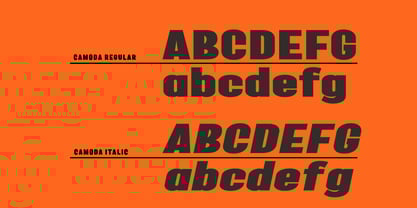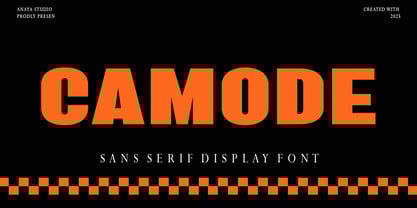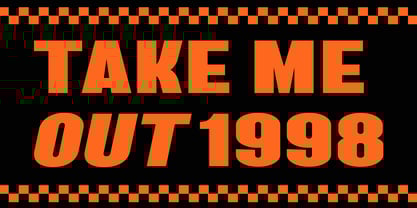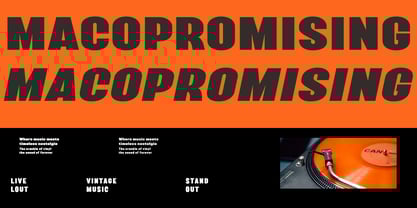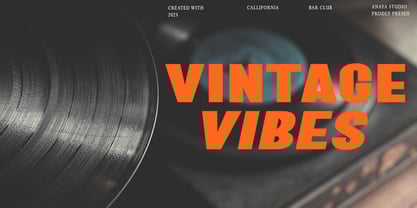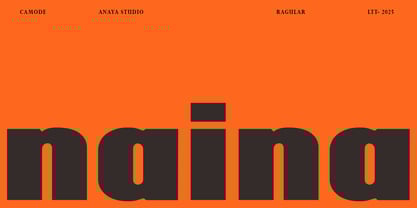
Camode italic
by Anaya Studio
The Camode italic Font Family was designed by Julizar Ismail and published by Anaya Studio. Camode italic contains 2 styles and family package options. More about this family
Comada is a geometric display typeface where optics turn organic. It plays with the rhythm of counterforms and soft curves, creating a vibrant pulse across words. Its even proportions ensure consistency in titles, while its bold presence makes it ideal for music graphics, film, editorial headlines, and expressive branding.
Comada comes in a single weight and includes an extensive set of diacritics along with a few alternate characters, offering flexibility for multilingual and stylistic use.
Designers: Julizar Ismail
Foundry: Anaya Studio
Camode italic